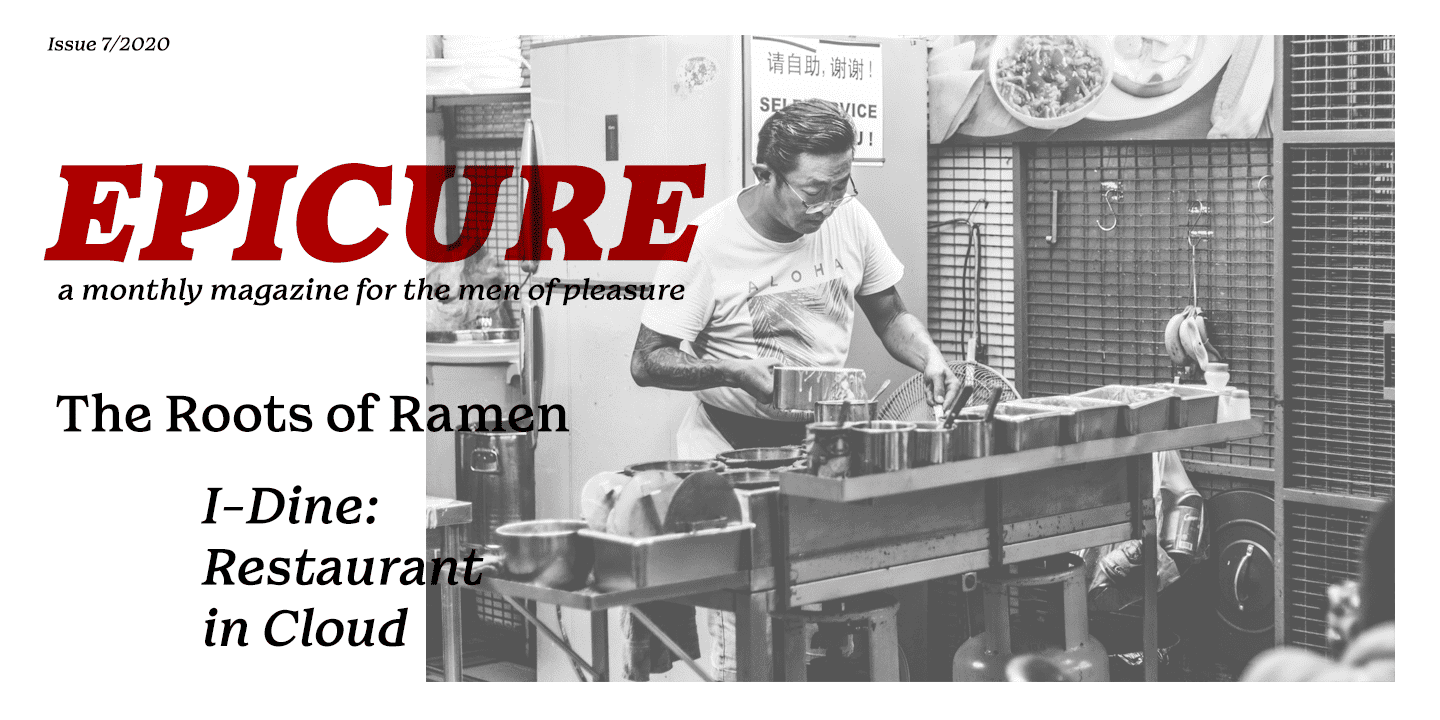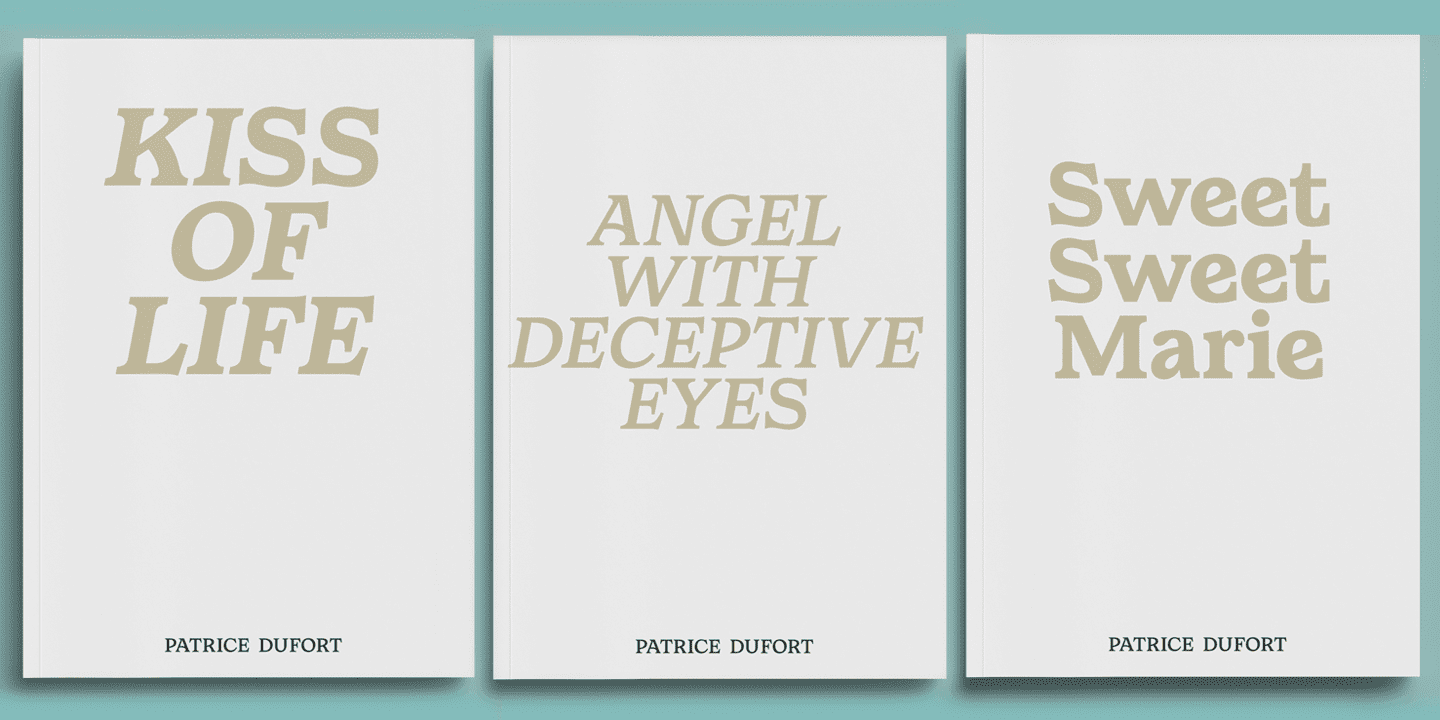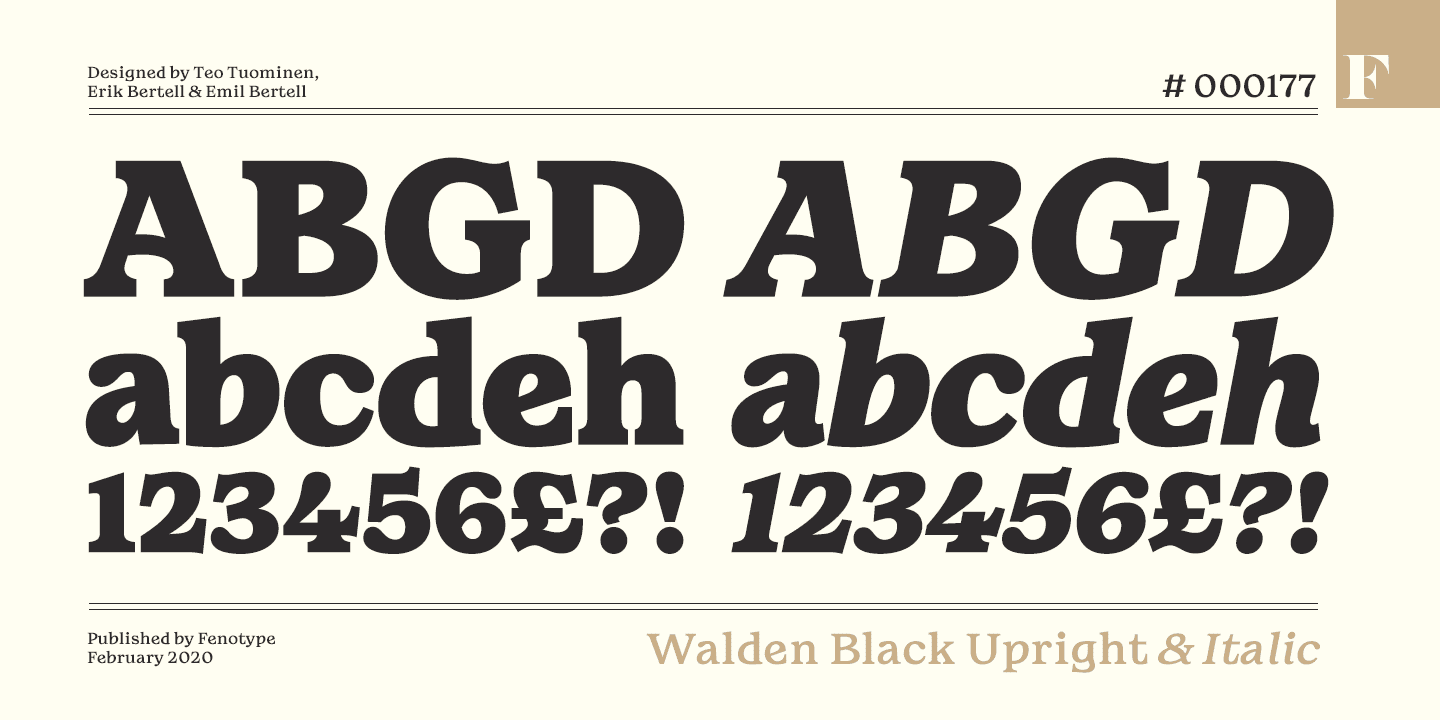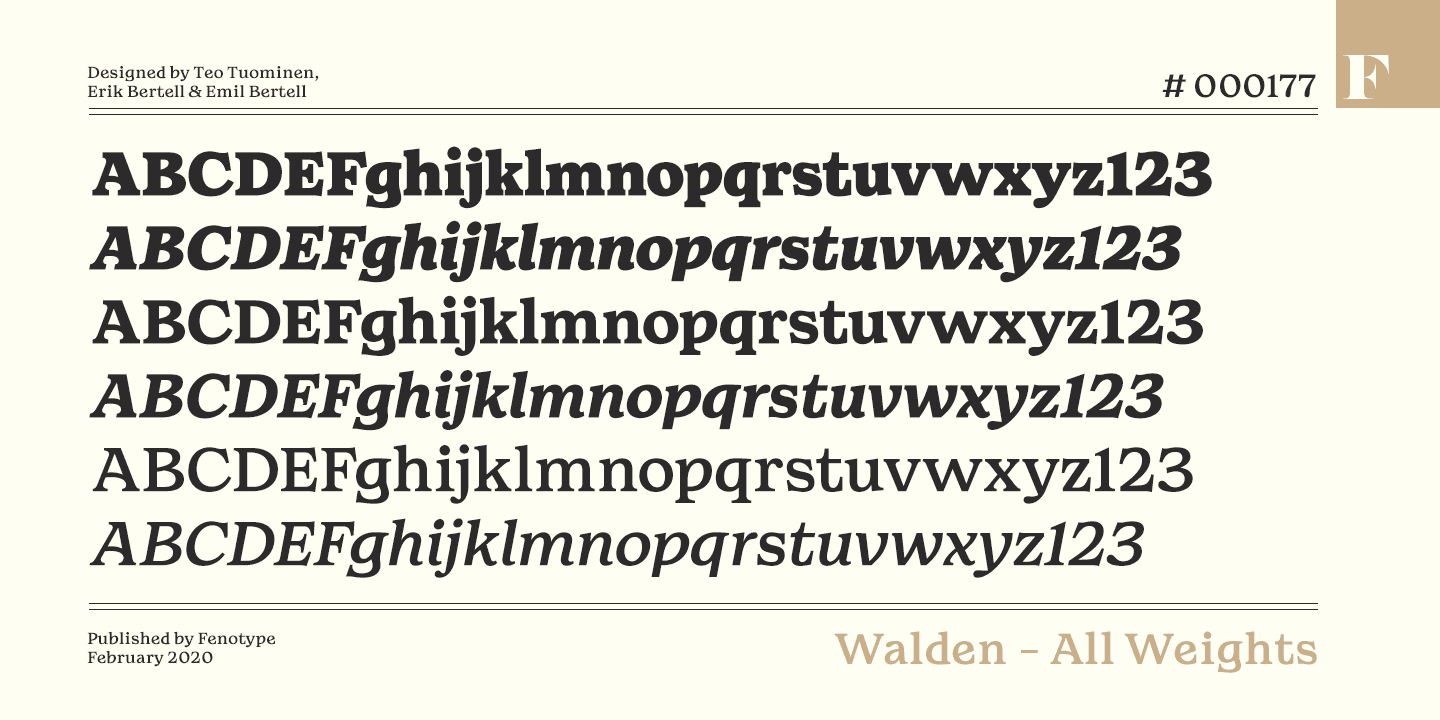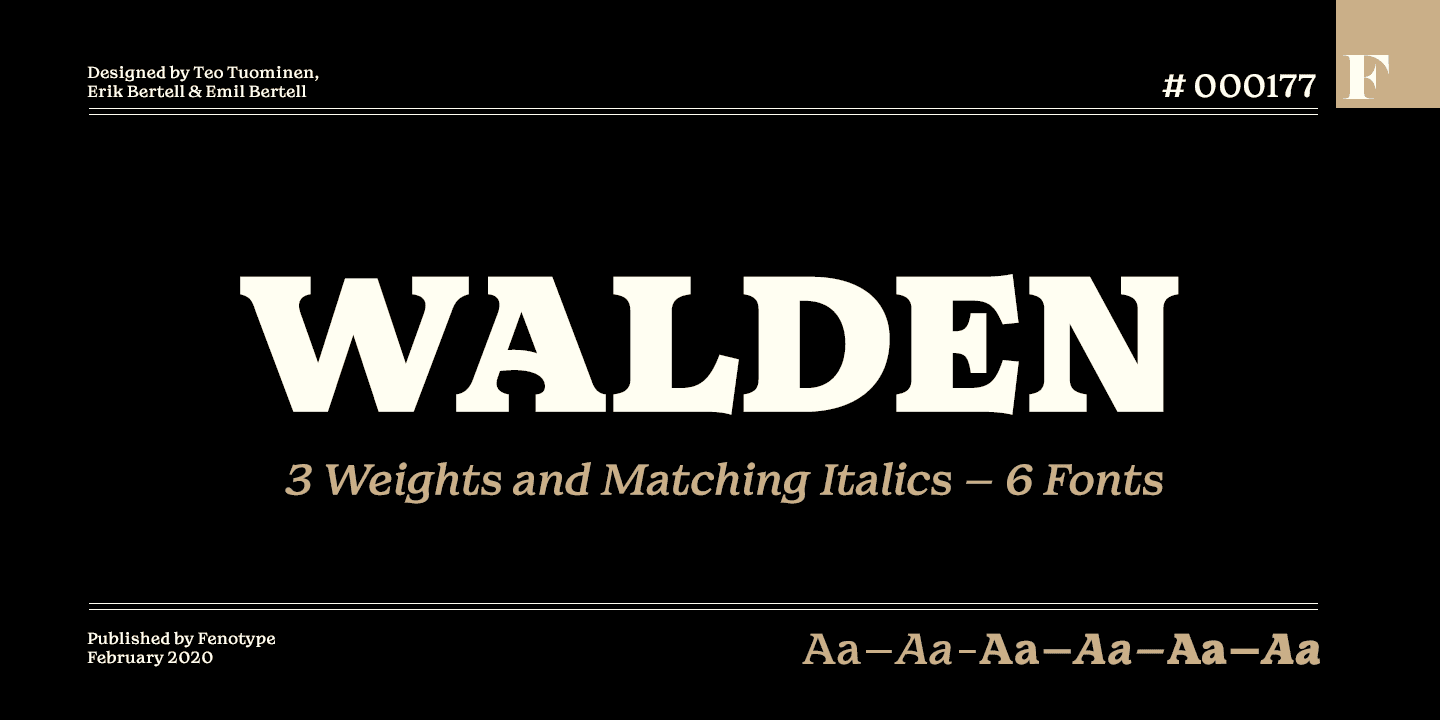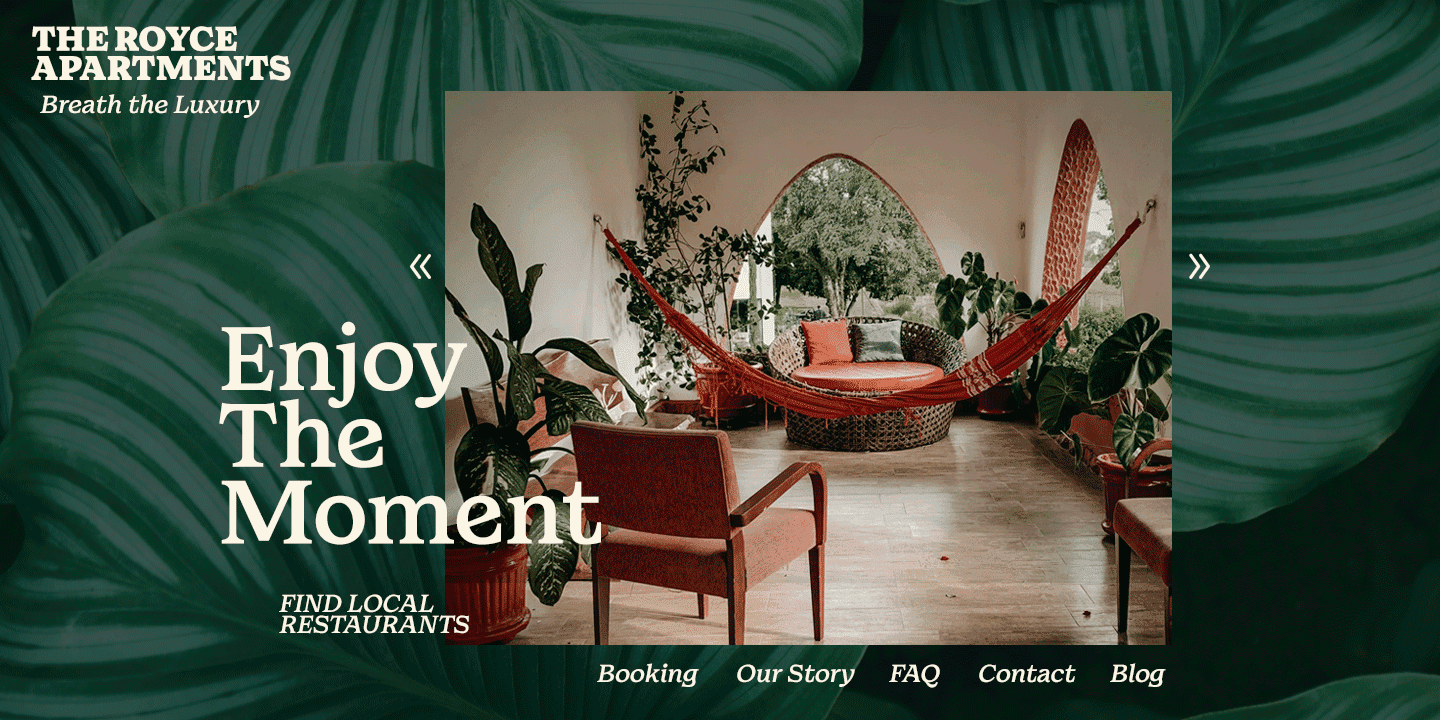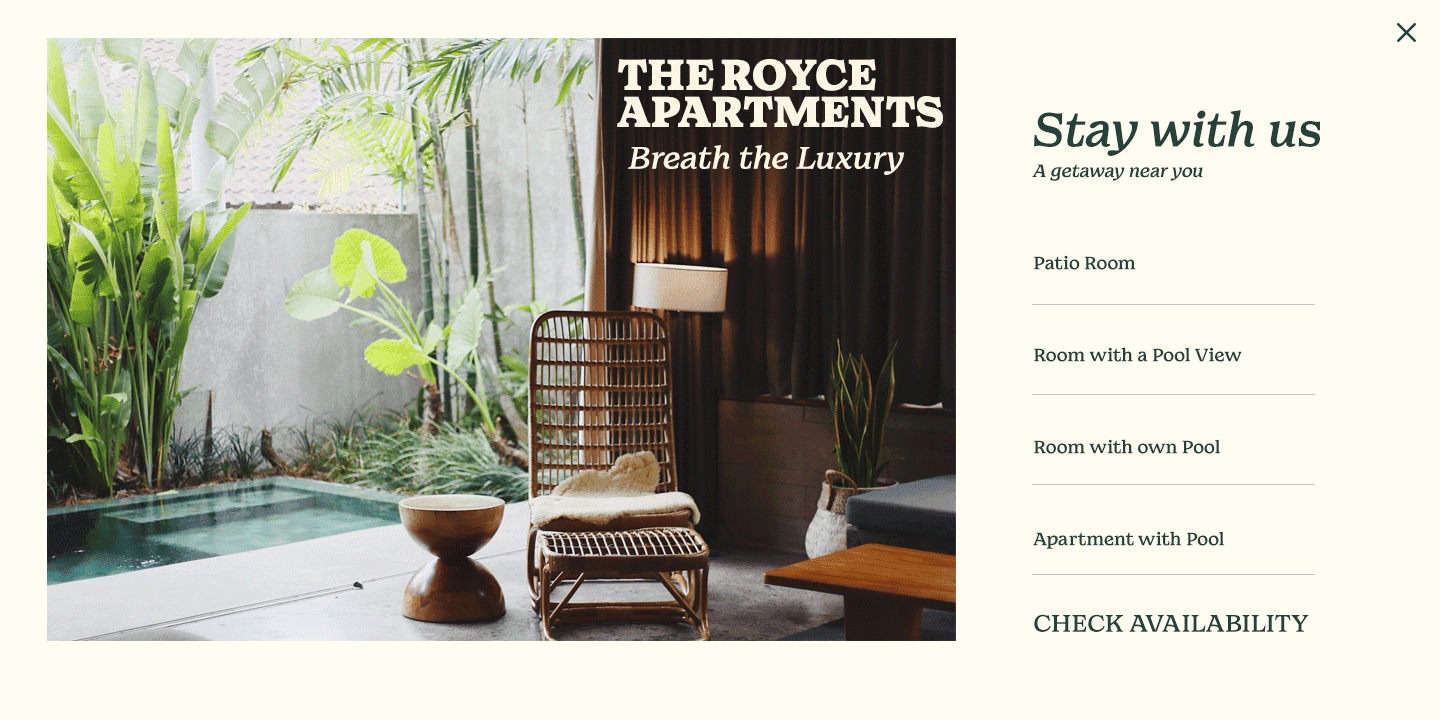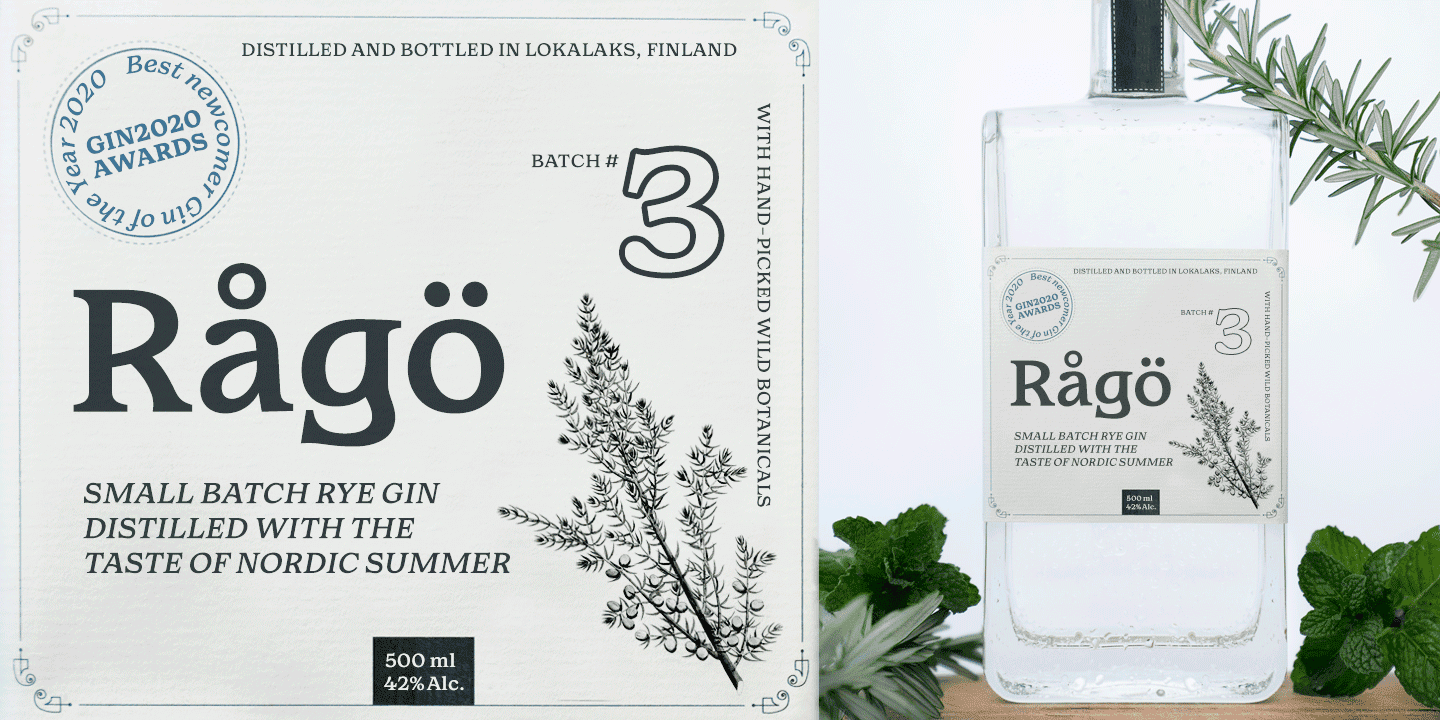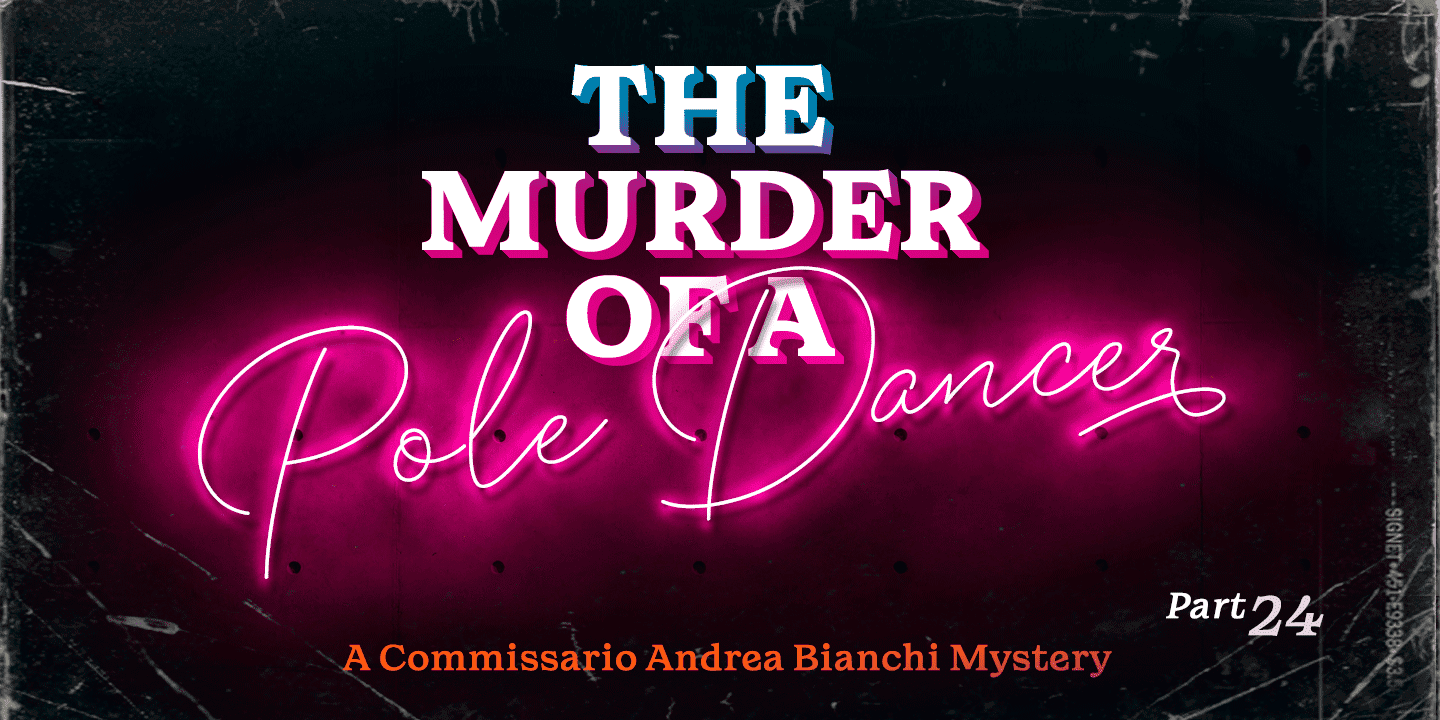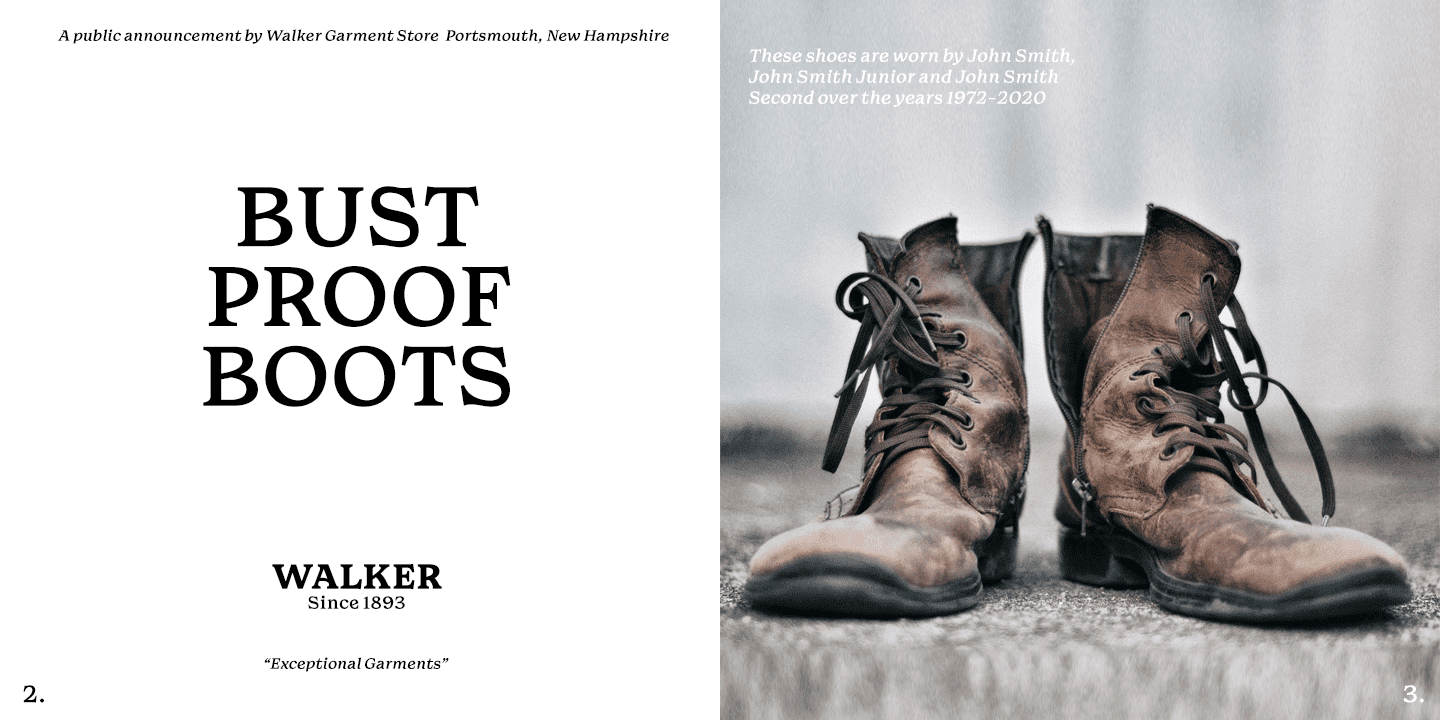
Walden Family (6 fonts)
Despite its rustic appearance, Walden is perfectly adaptable to contemporary use, wherever a bit more character is needed. Decidedly kept simple, these three weights with matching italics is all you need.